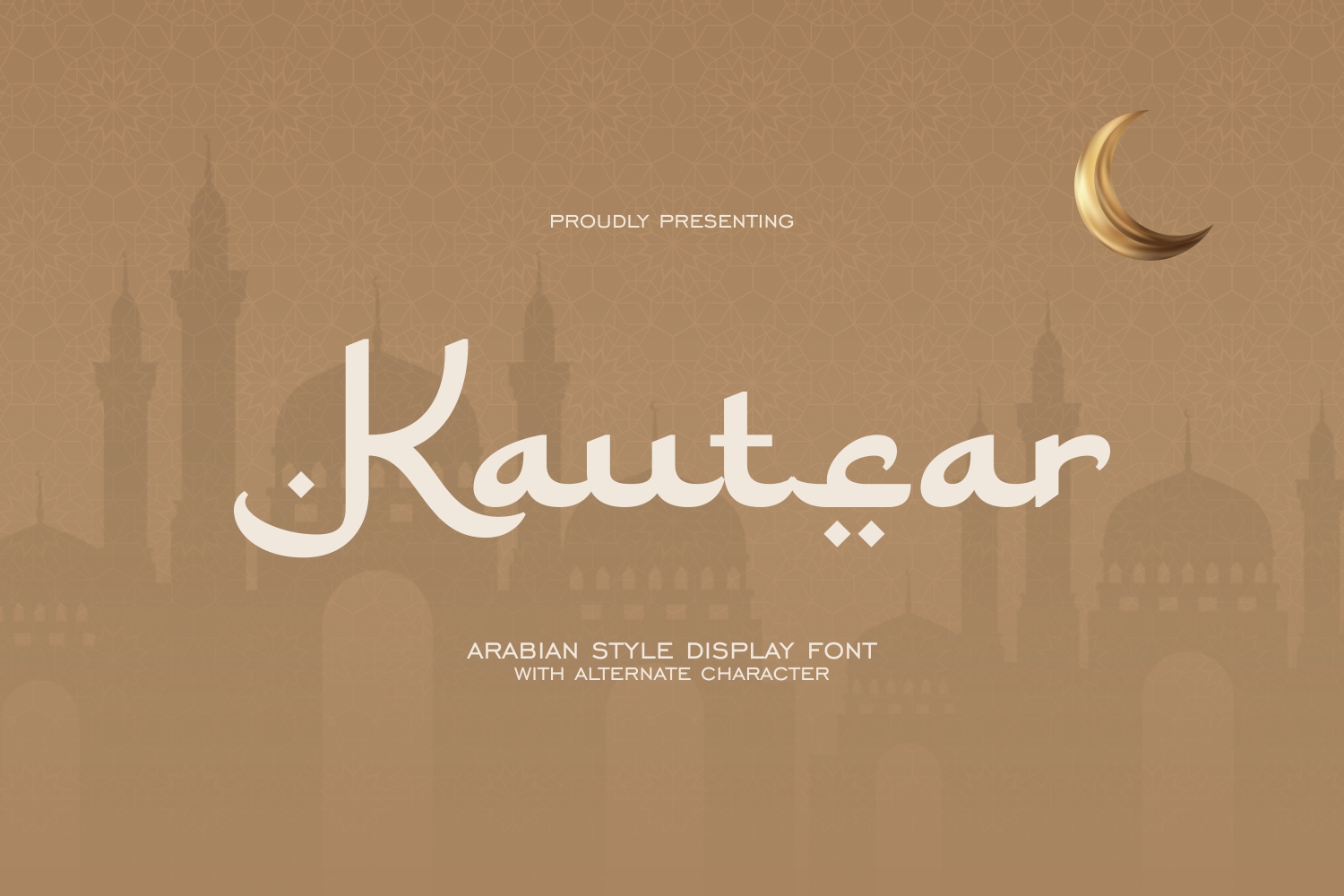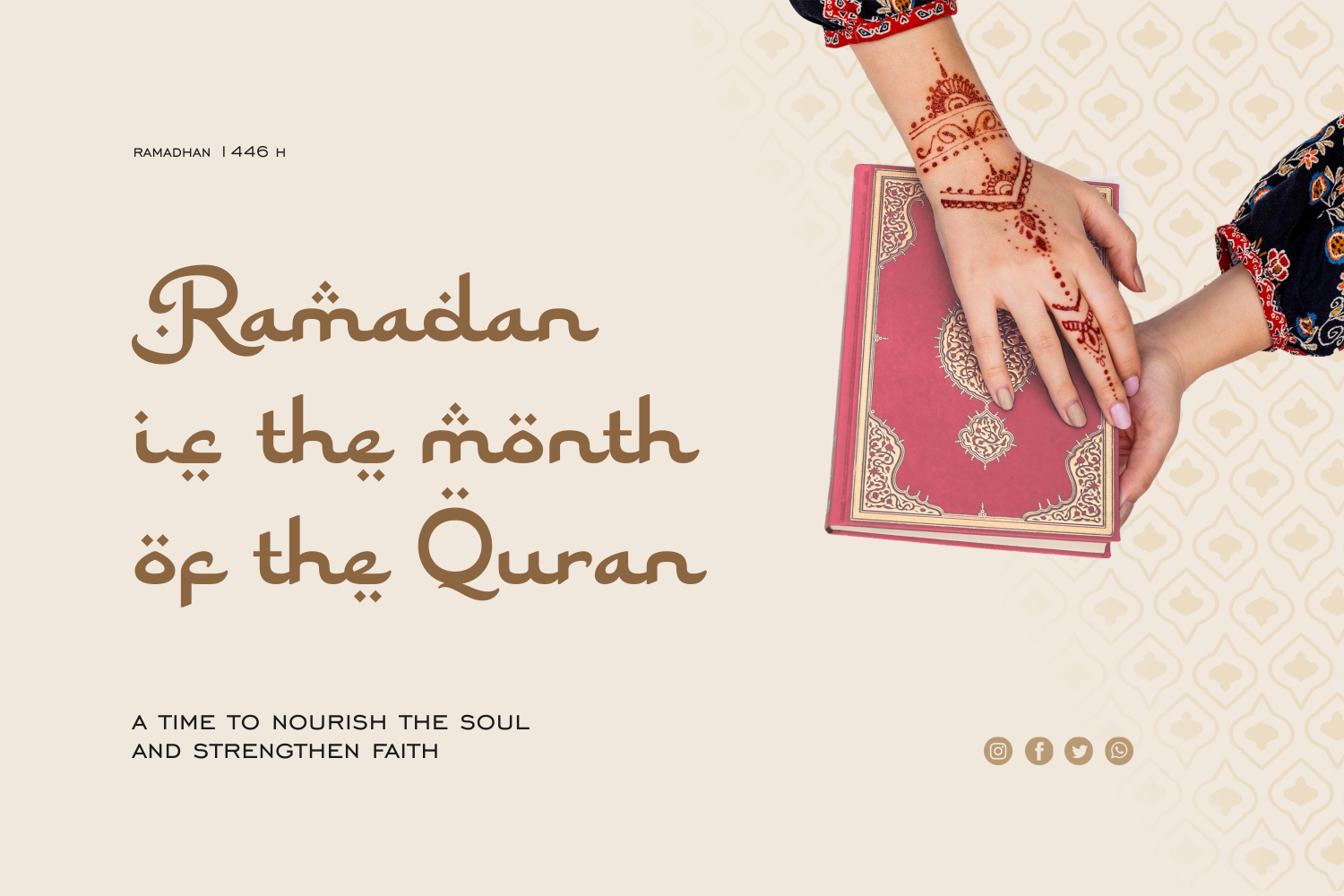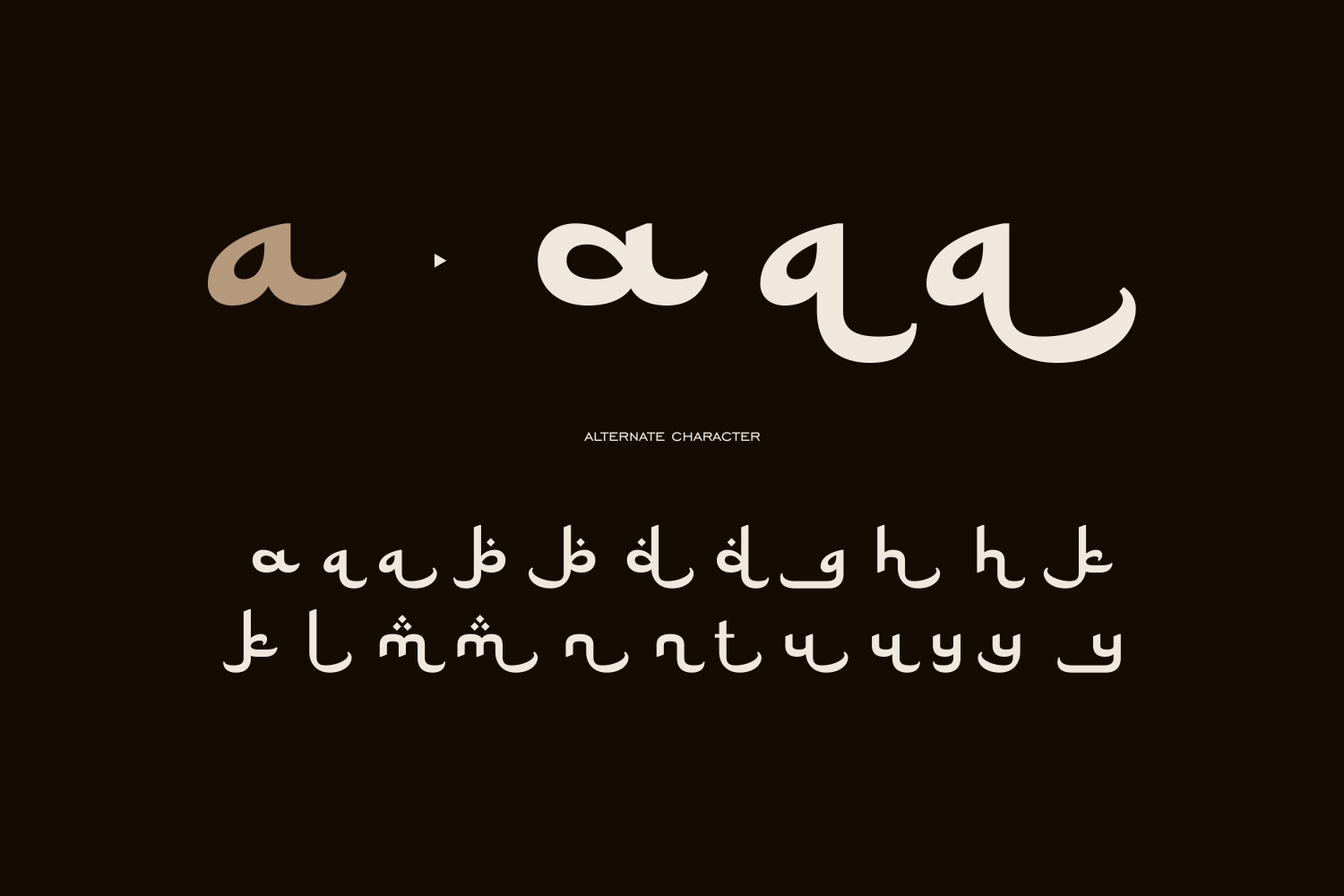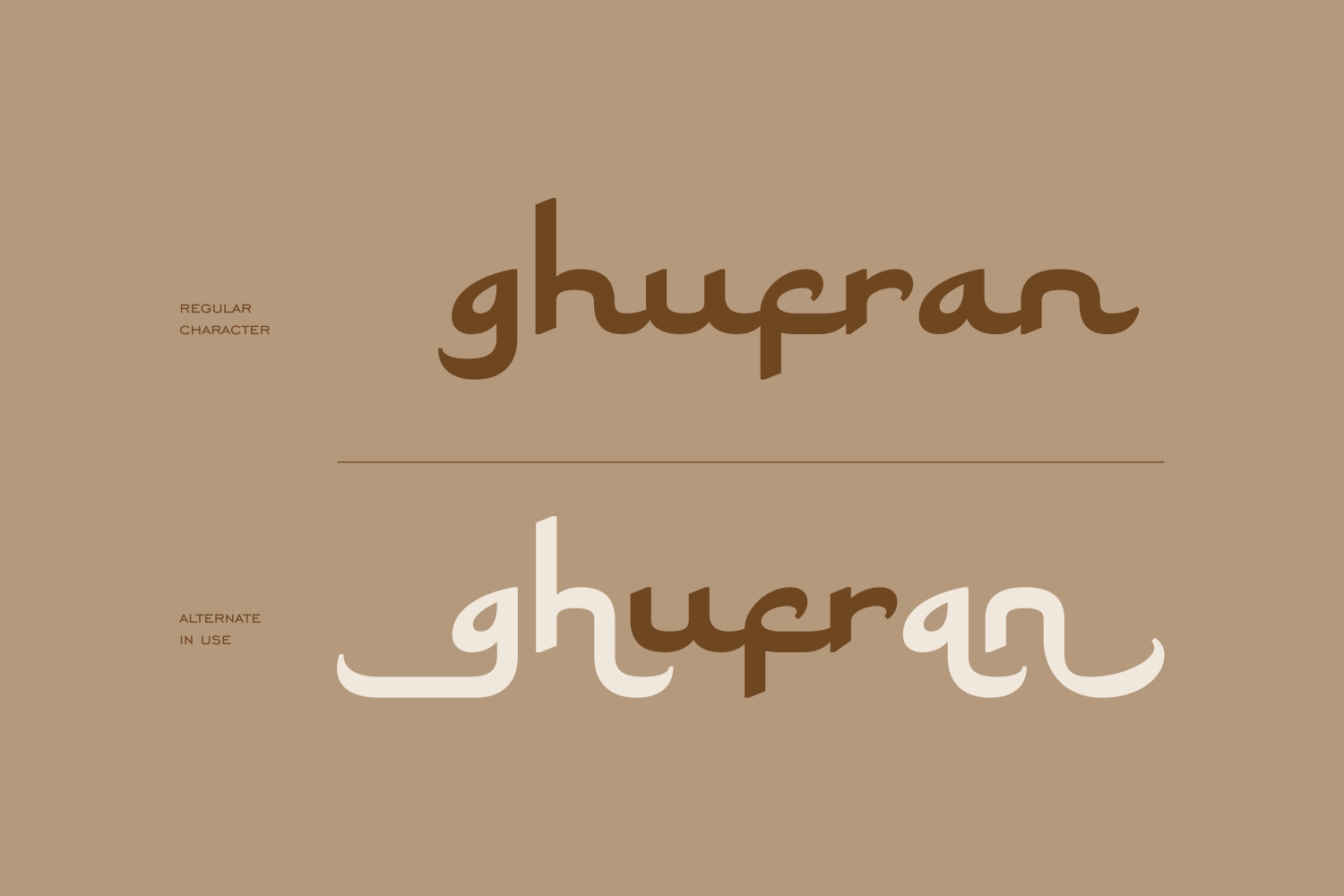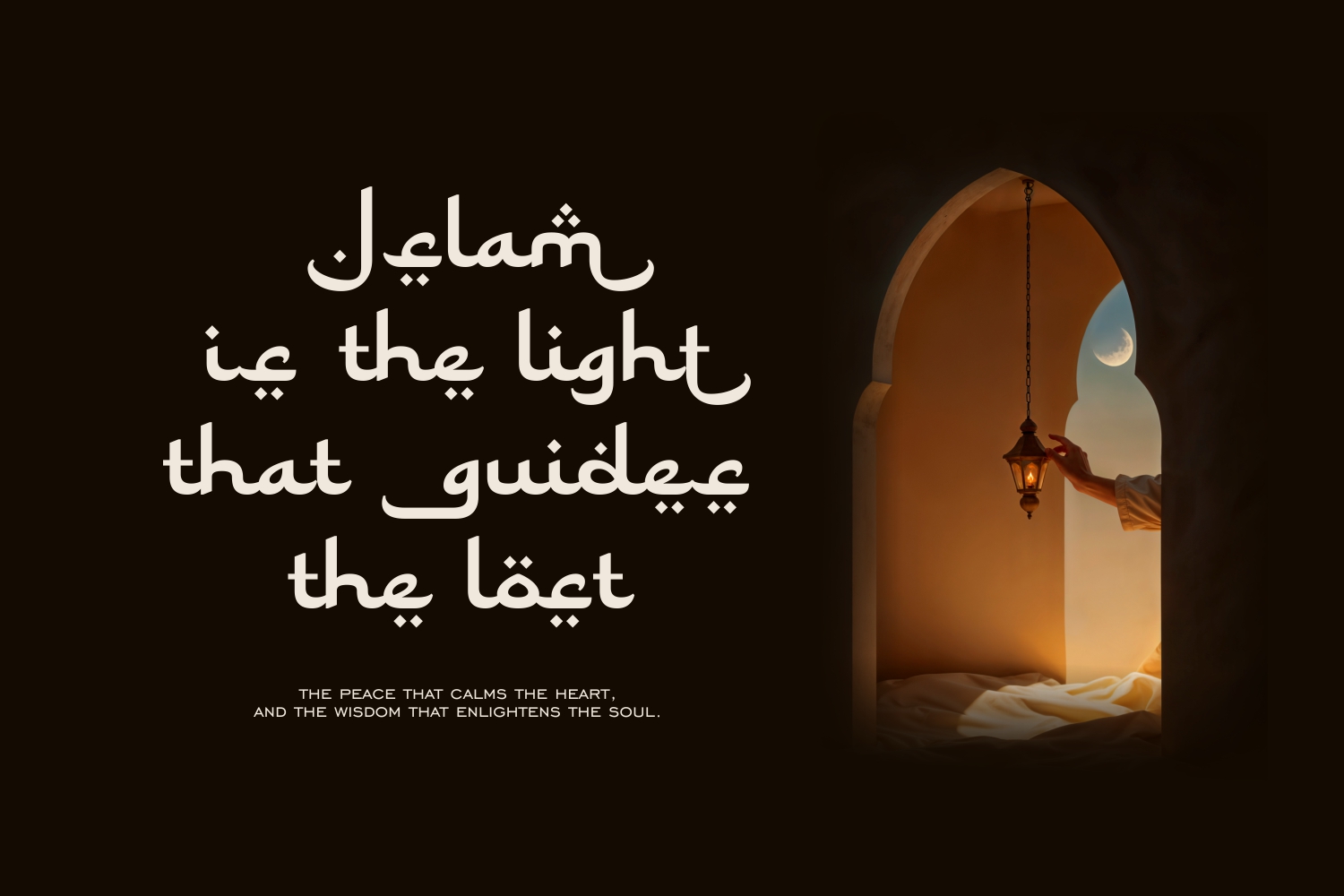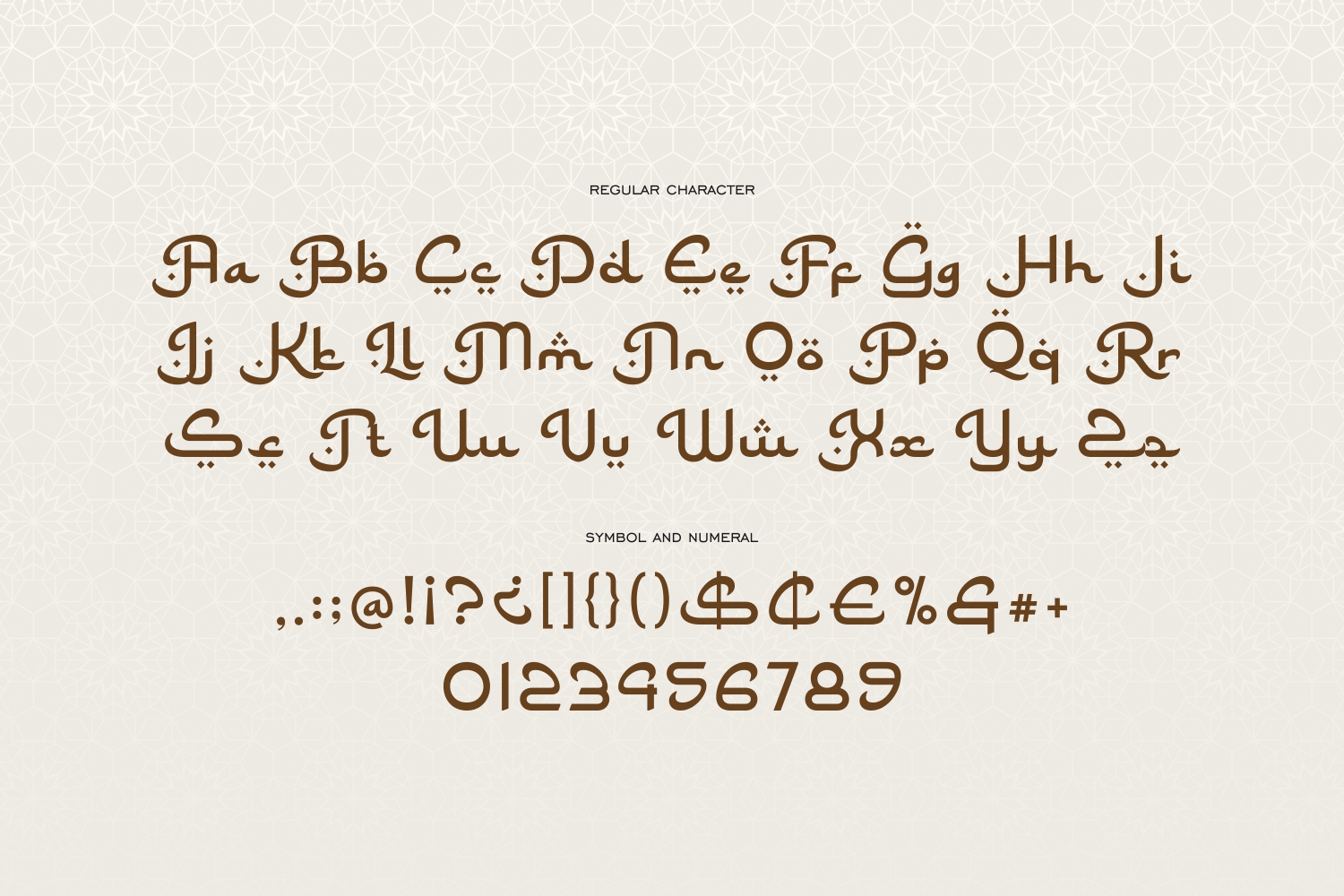
Kautsar is an Arabian style display font that blends elegance and cultural authenticity with a modern touch. Its smooth curves, unique alternates, and ornamental details make it ideal for spiritual themes, Islamic events, and festive occasions. Inspired by Arabic calligraphy, Kautsar brings a refined and graceful look that works beautifully for both digital and print projects.
With its versatile alternates and complete character set, Kautsar is perfect for Ramadan and Eid greetings, book covers, packaging, branding, posters, and social media designs. Its balance of readability and artistic flair ensures every design carries a sense of tradition, sophistication, and timeless beauty.
Kautsar